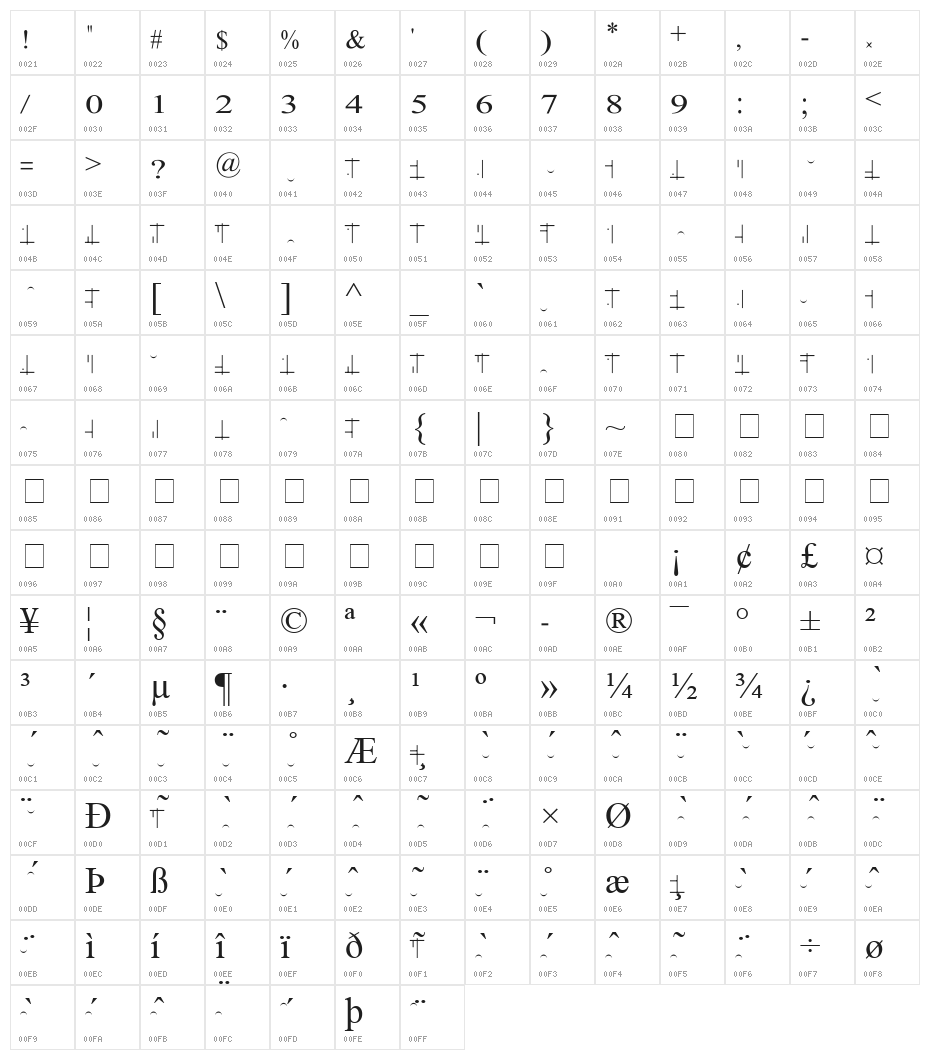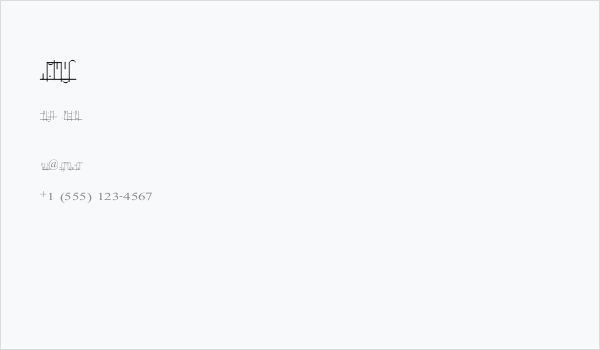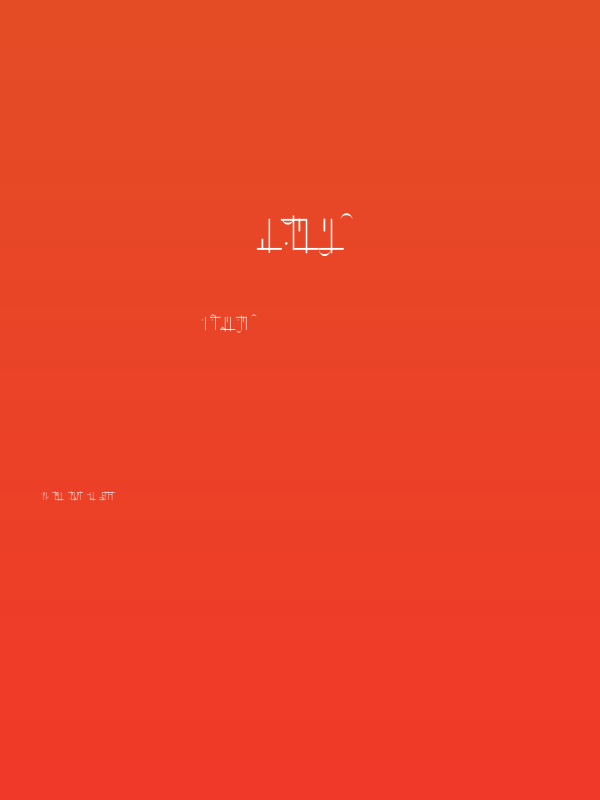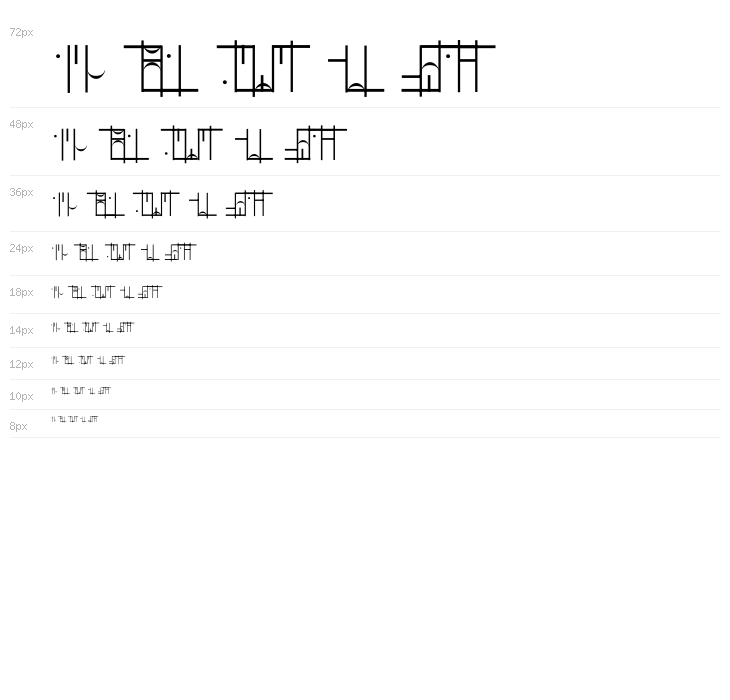
Library Font
Library Description
This font features a unique blend of geometric and artistic elements, characterized by its distinct use of lines and dots that create an abstract, almost futuristic appearance. The characters are crafted with a combination of straight lines and curves, giving them a balanced yet dynamic look. The numbers and special characters maintain this aesthetic, ensuring consistency across all elements. The font's design is both modern and artistic, making it suitable for creative projects that require a touch of uniqueness and sophistication.
Proposed ProjectsIdeal for branding, logos, and creative design projects that seek a modern and artistic flair.